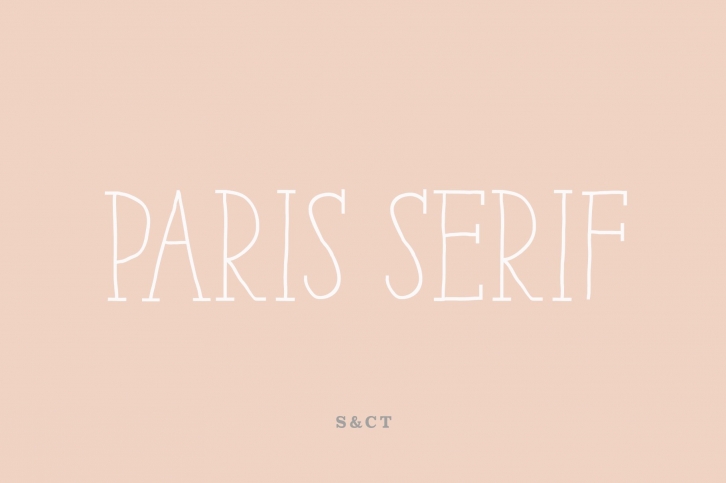
Paris Serif is an avant-gardist serif handwritten font designed in Paris. It’s an all-caps thin font, with Art Deco ornaments and extended glyphs for many languages. But the little difference of Paris Serif from other handwriting typefaces is the Art Deco feeling that brings it a retro and directly familiar look.